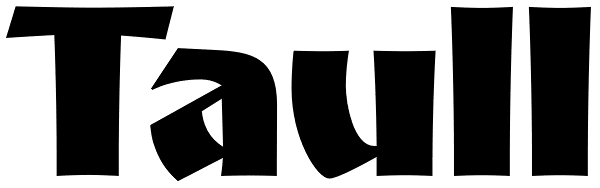
Taüll
Inspired from old black lettering devices, this typeface's main goal is to link the medieval world with our brand new digital metropolis.
A southern flavoured typeface that transfer us to the heart of Pyrenees mountains, with its tiny villages...